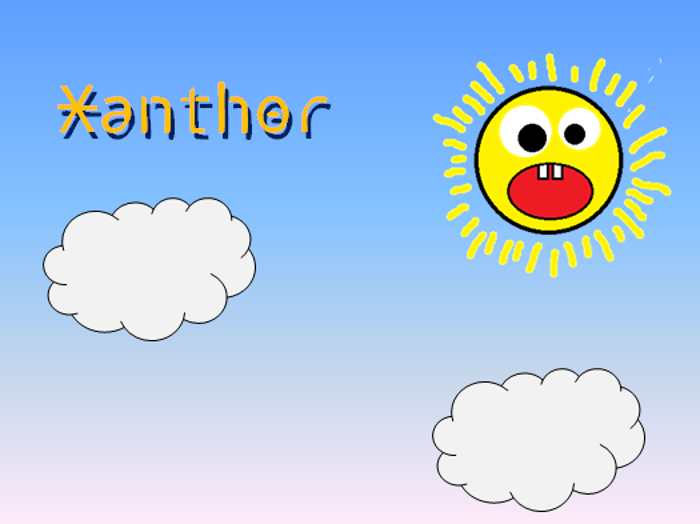
Xanthor Font
another font, but also the first font inspired by voice actor/actress, celebrity, dj, etc.
Original font edited by the Argentine font designer, Franco Fernández: